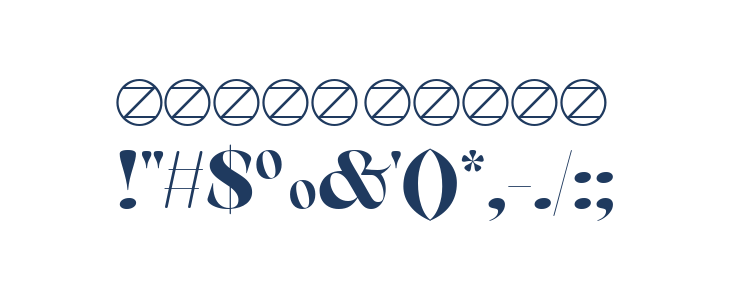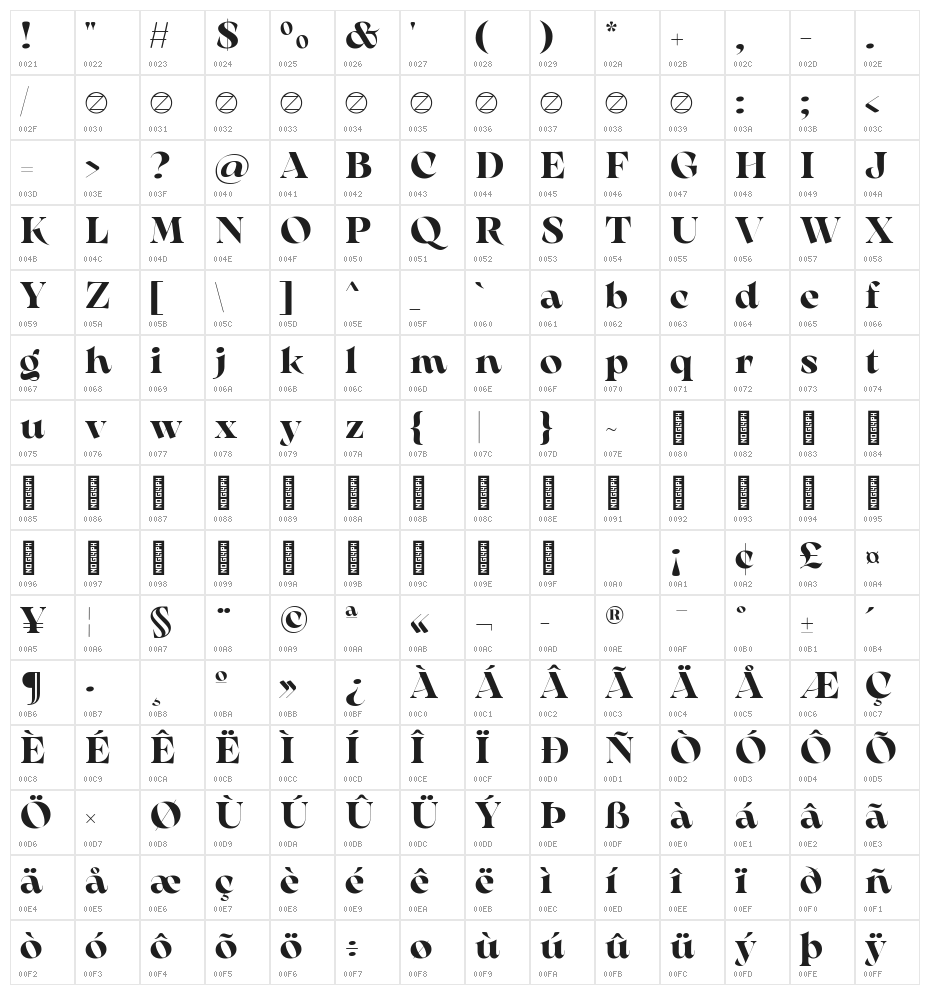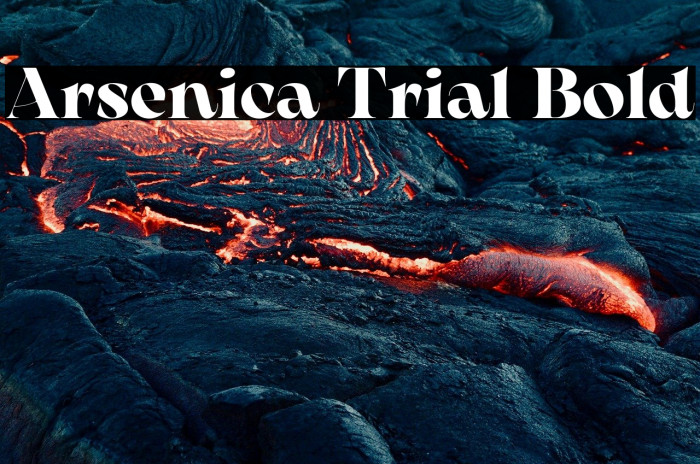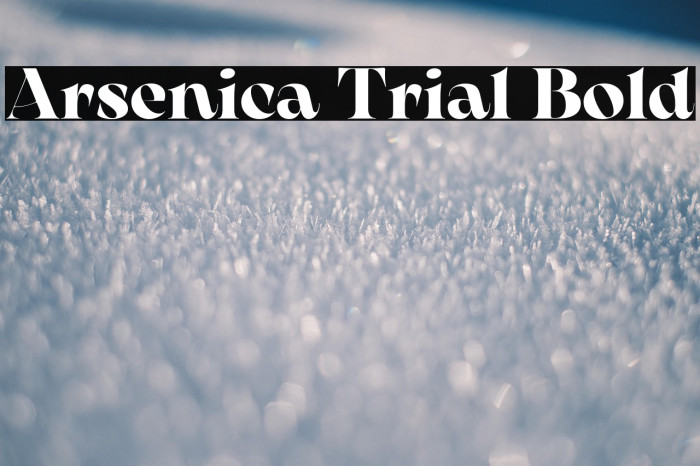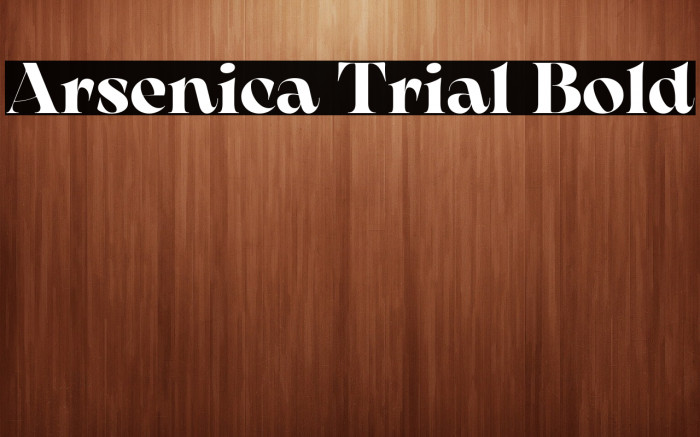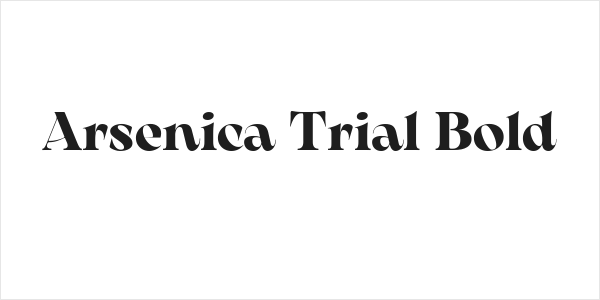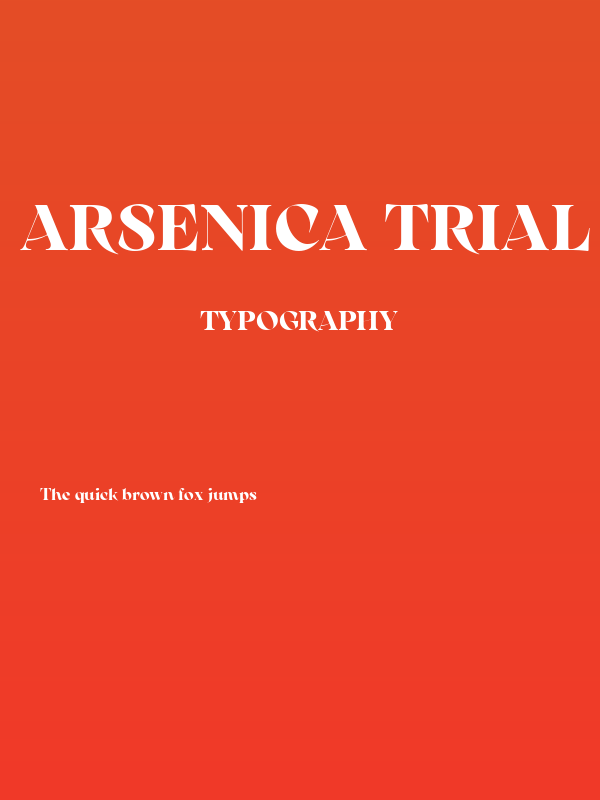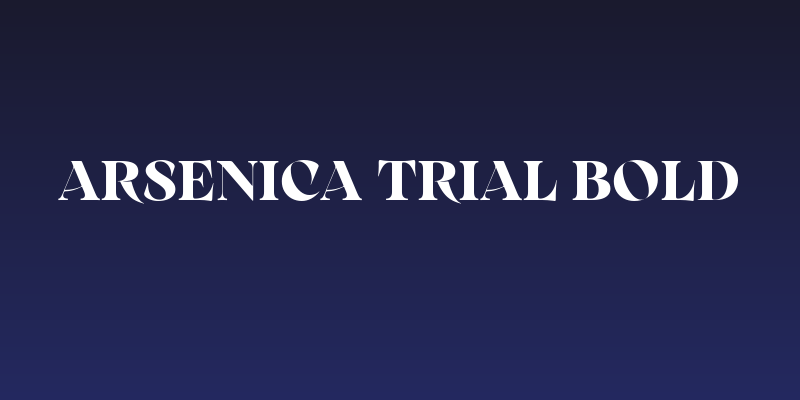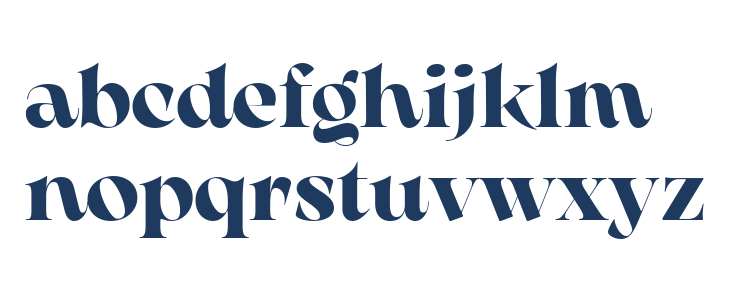
Arsenica Trial Bold Font
Arsenica Trial Bold Description
This font exhibits a bold and striking appearance with high contrast between thick and thin strokes, creating a dramatic and elegant look. The serifs are pronounced and sharp, adding a classic touch to the overall modern design. The uppercase letters are particularly impactful, with a strong presence that commands attention. The lowercase letters maintain a consistent style, with smooth curves and a slightly condensed form that enhances readability. The numerals and special characters are designed to complement the alphabet, featuring the same boldness and contrast. This font is ideal for making a statement in any design project.